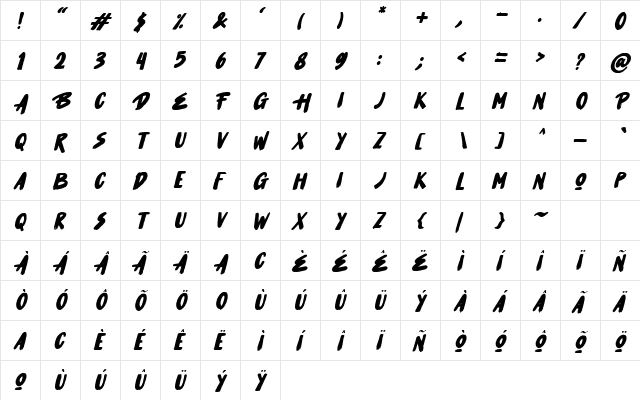
Hot Sauce Italic
| Foundry | Dikas Studio |
| Designer | Andika Setiawan |
Design Context for Hot Sauce Typeface
Hot Sauce is a composed and adaptable typeface that performs quietly and consistently across a wide range of design contexts. Its italic angle brings a sense of urgency and motion to the letterforms.